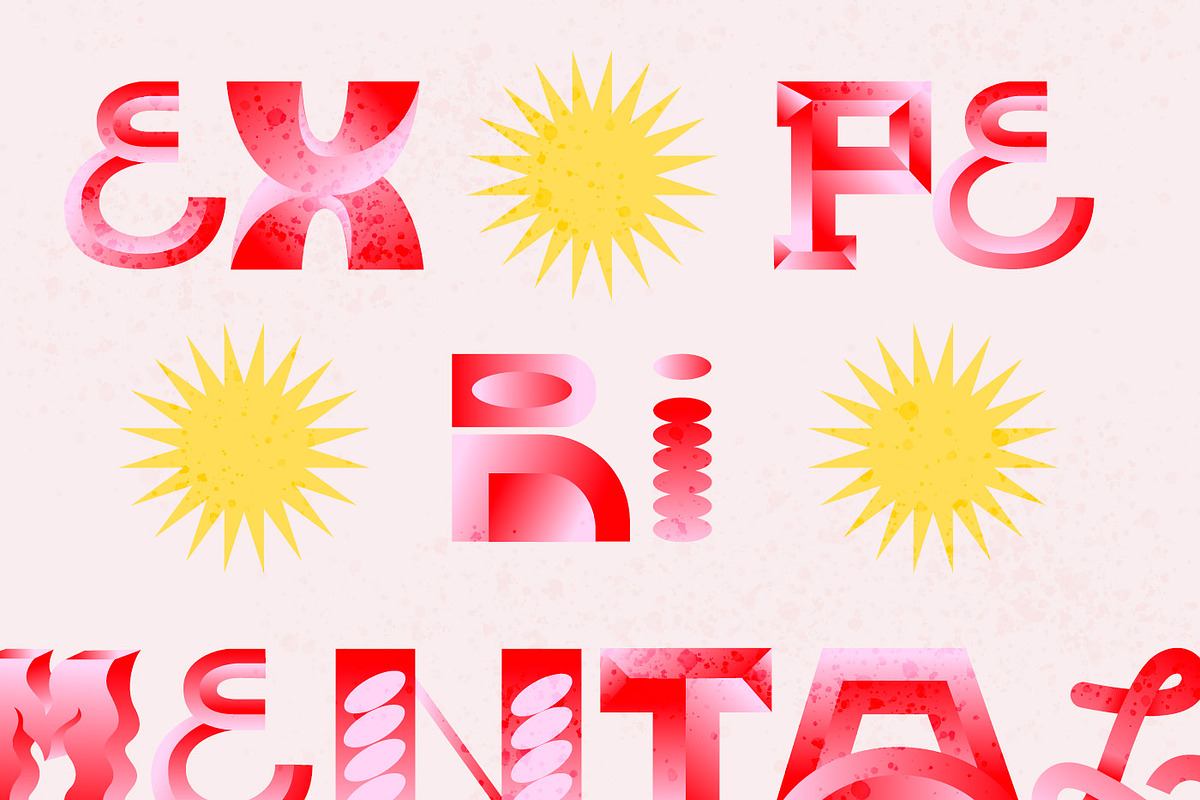
Rialta Regular - Experimental Font Free Download
Please note, to use this font for commercial purposes, you must purchase the full version. Rialta Regular is an experimental font designed to push the boundaries of traditional typography. With its unique letterforms and creative style, this font is perfect for experimental projects, modern branding, futuristic designs, and artistic endeavors. Whether you're creating a bold logo, a conceptual poster, or a cutting-edge brand identity, Rialta Regular adds an innovative and fresh touch to your work. Test it out and enjoy free download access for personal use. Experience the experimental flair of Rialta Regular - Experimental Font Free Download before purchasing the commercial license. Add a modern, creative edge to your designs with Rialta Regular.